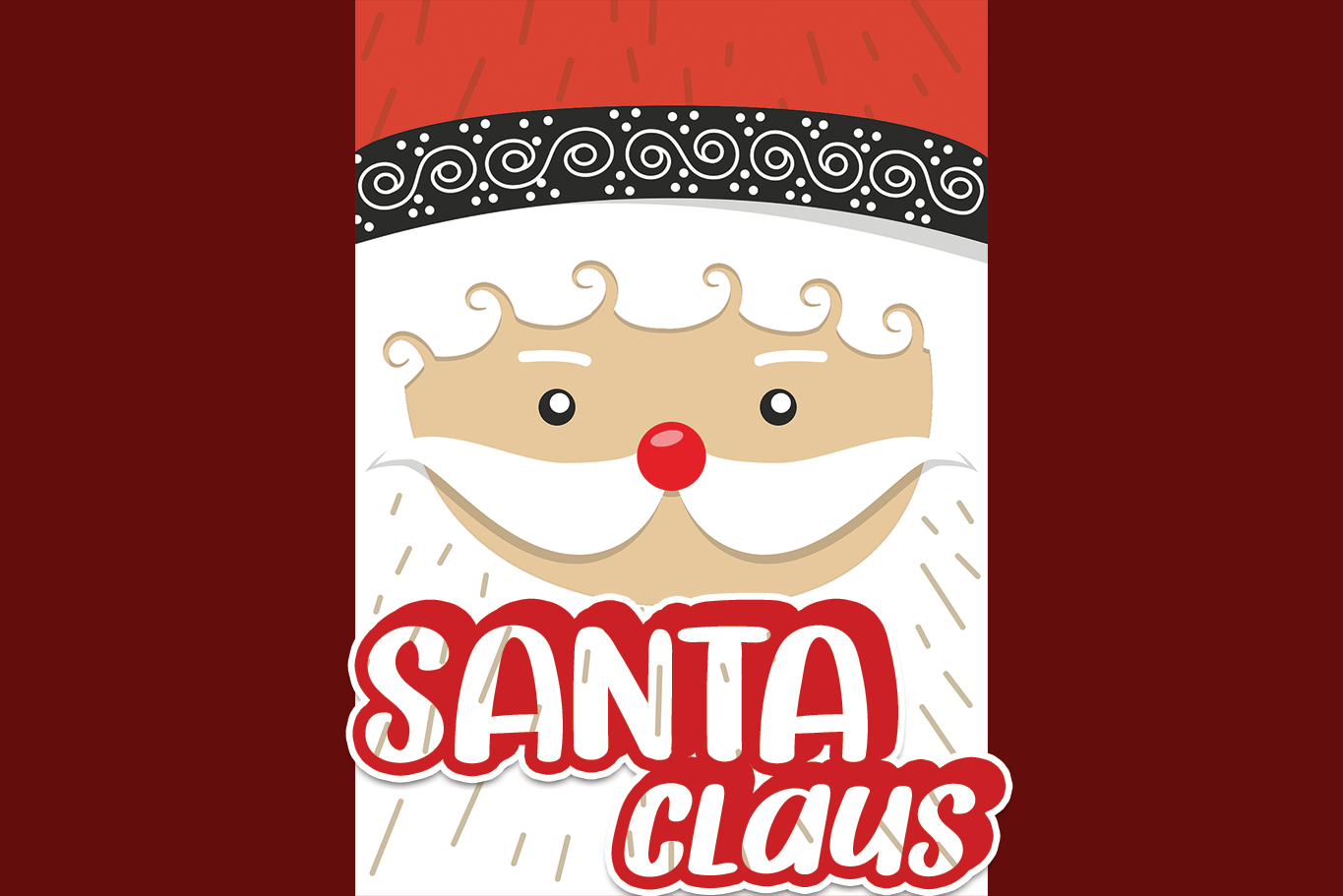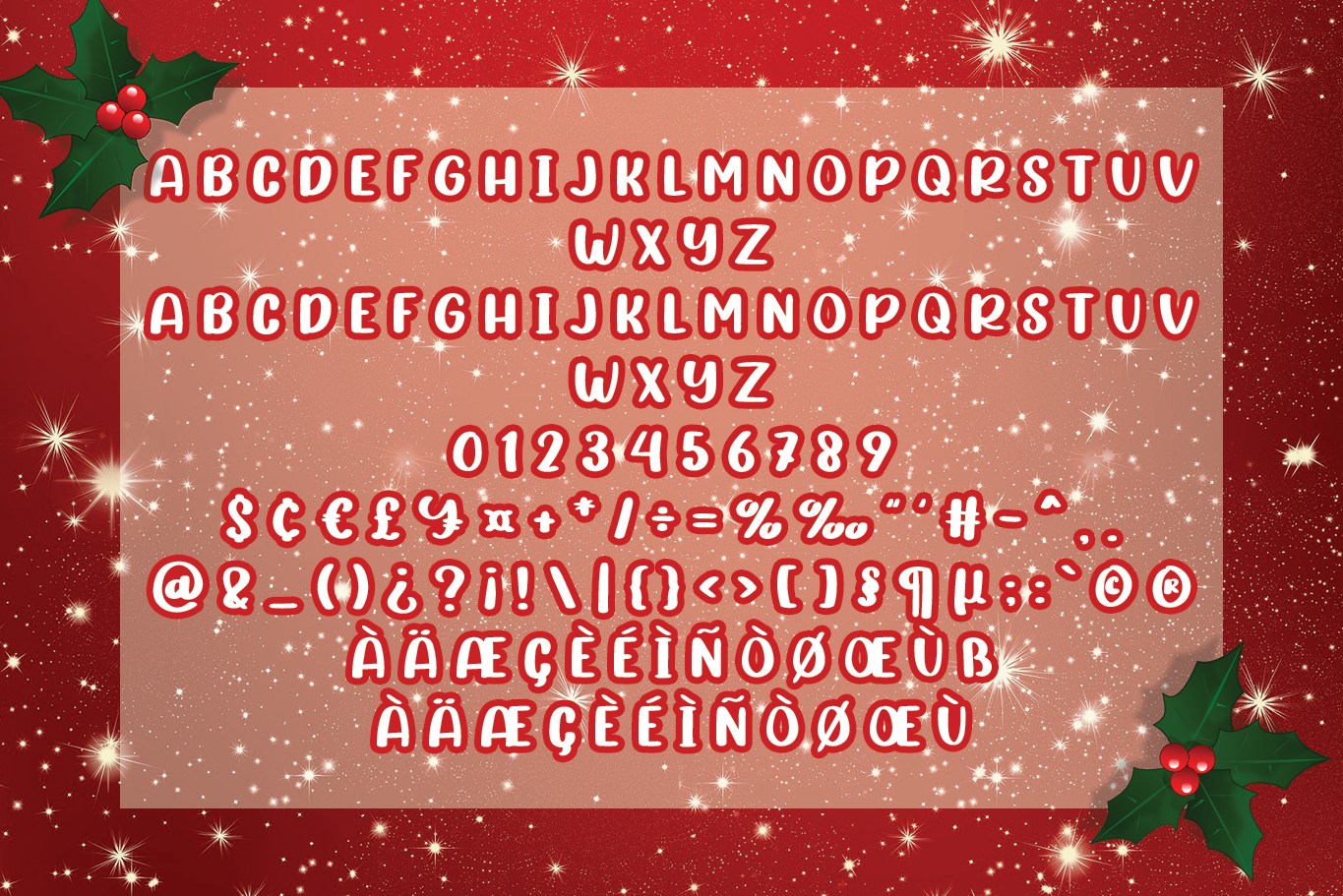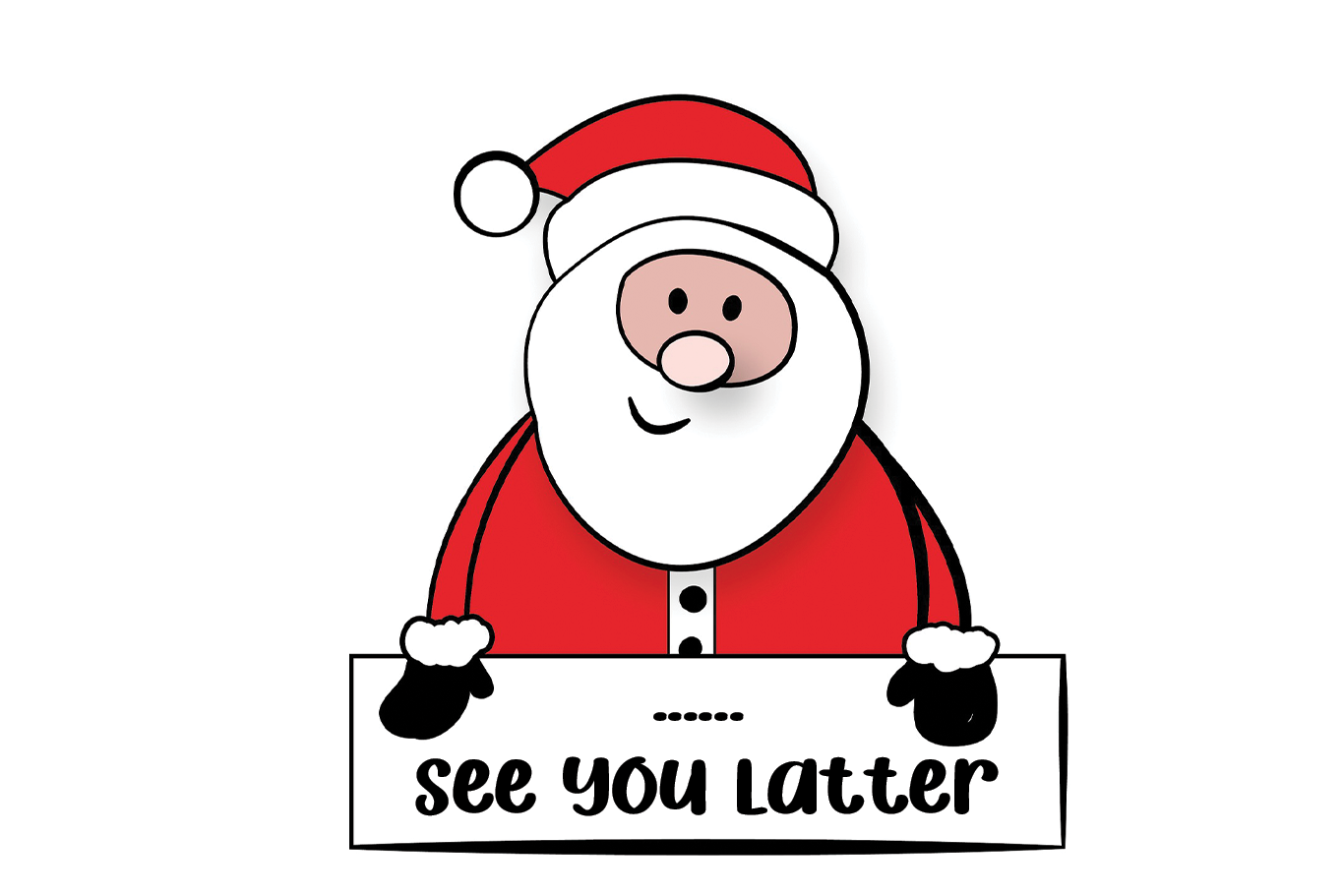
Christmas Day Font
Christmas Day Display Font
This is a cool and fun display font. It can easily be matched to an incredibly large set of projects, so add it to your creative ideas and notice how it makes them stand out!